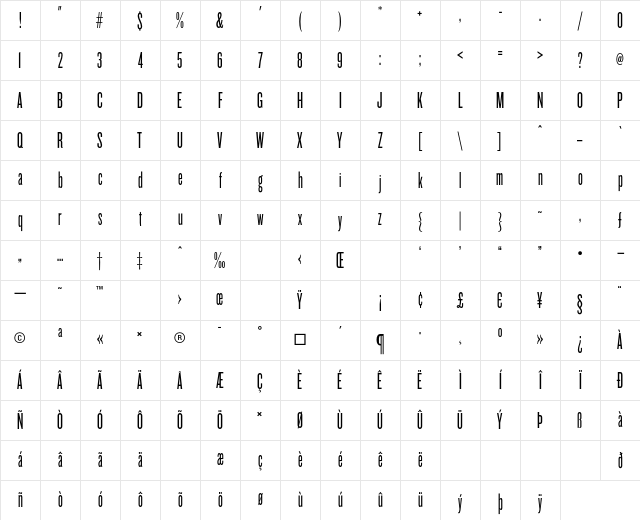
Knockout HTF26-JuniorFlyweight
Style: HTF26-JuniorFlyweight
Design Context for Knockout
Knockout is a composed and adaptable typeface that performs quietly and consistently across a wide range of design contexts.